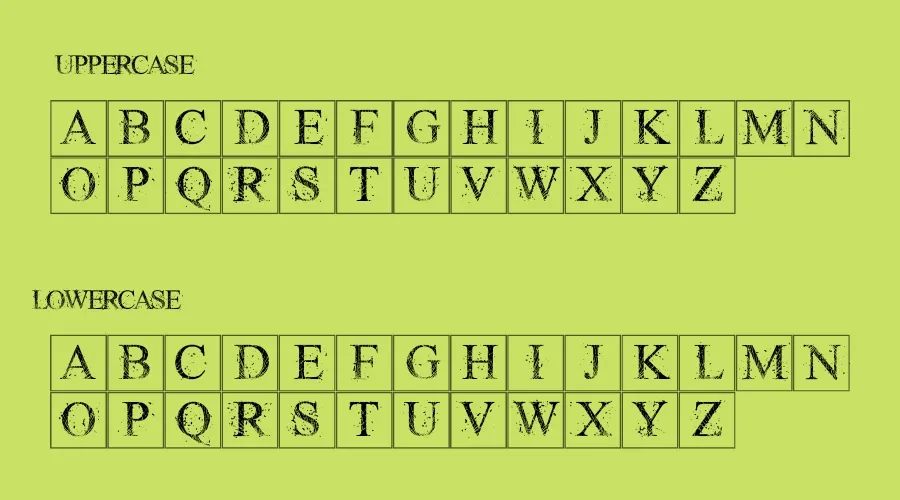
Riot Glass Font
About Riot Glass Font
The Riot Glass Font was developed by a well-known graphic designer known as the name of Tom Kolodziejski and It has only one multiple style. This texture is under the category of the fancy texture family.
It has a tall x-height, broad counters, and a big aperture. This texture also has a considerable mixture of glyphs, including ligatures, lowercase letters, old-shapes figures, and particles. The online generator tool of this typeface will help you to transform all your secret characters into stylish structures.